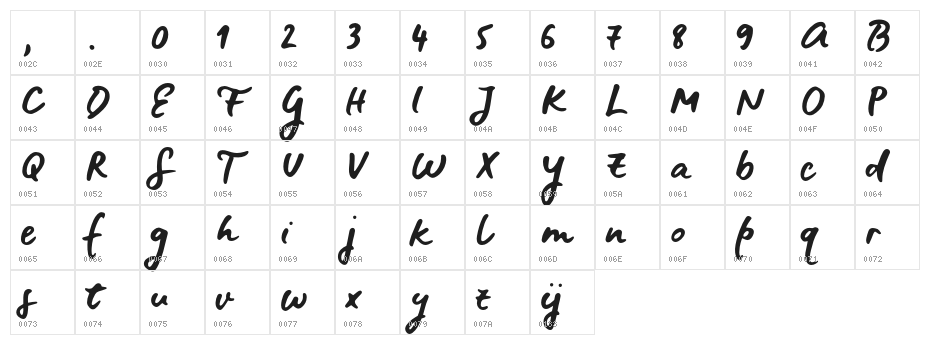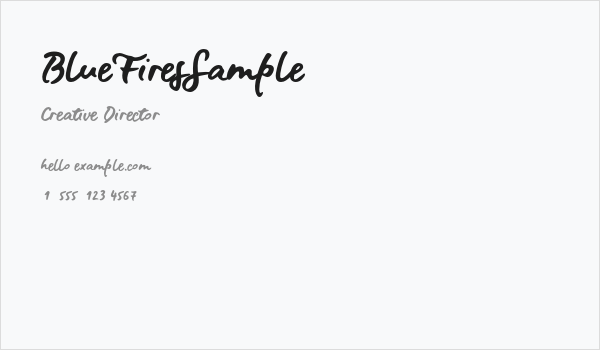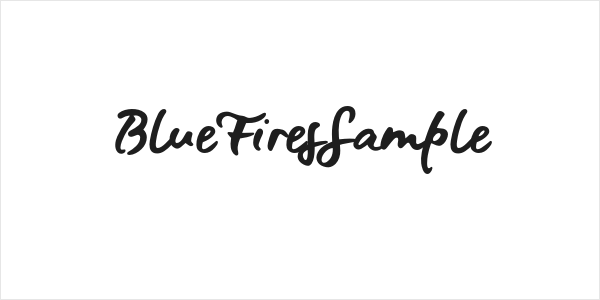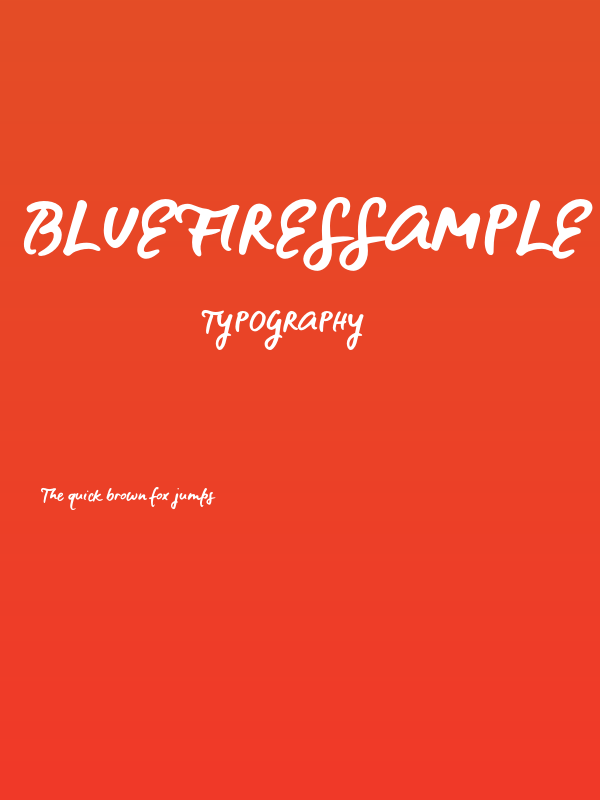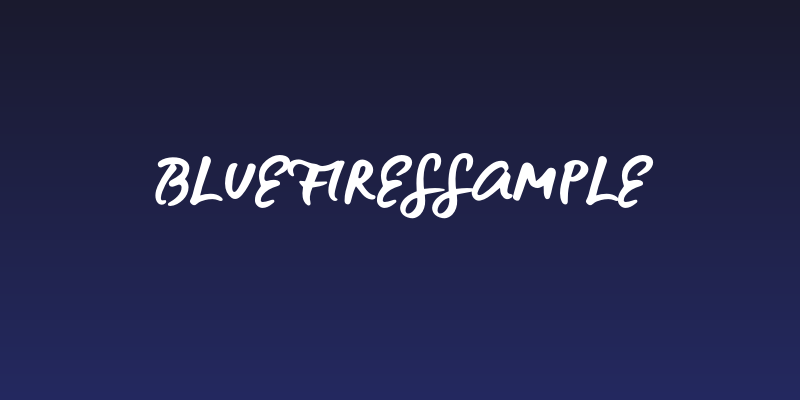
BlueFiresSample Font
BlueFiresSample Description
This font features a bold, expressive handwritten style with a fluid and dynamic appearance. The letters are connected with smooth, flowing strokes, giving it a lively and personal touch. The uppercase letters are slightly larger and more pronounced, while the lowercase letters maintain a consistent rhythm. The numbers are bold and clear, matching the overall style of the alphabet. Special characters are included, maintaining the same energetic and playful design. This font is ideal for projects that require a personal, informal touch, such as invitations, greeting cards, or creative branding.
| Proposed Projects | Ideal for invitations, greeting cards, creative branding, and personal projects. |